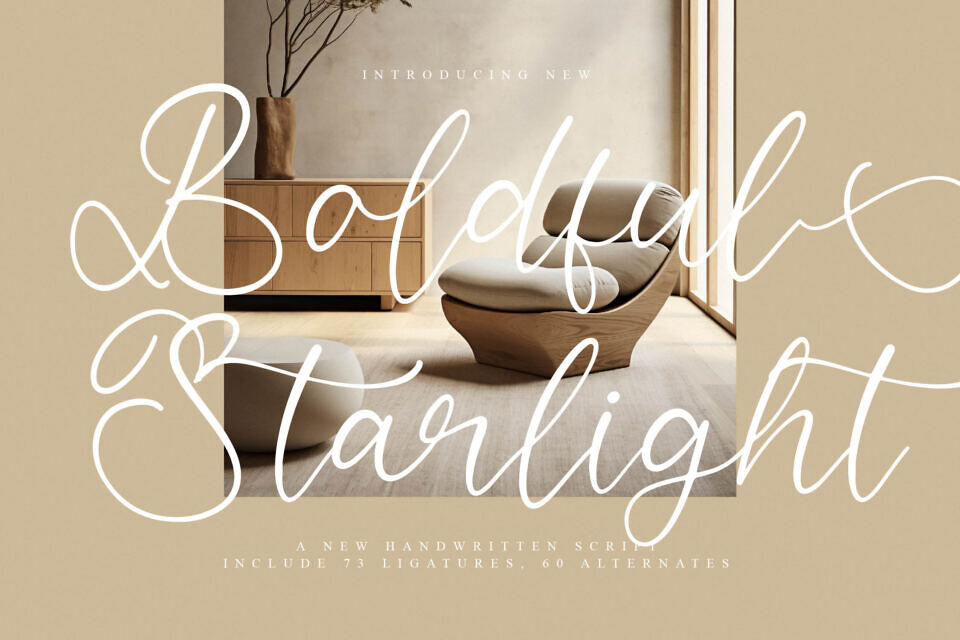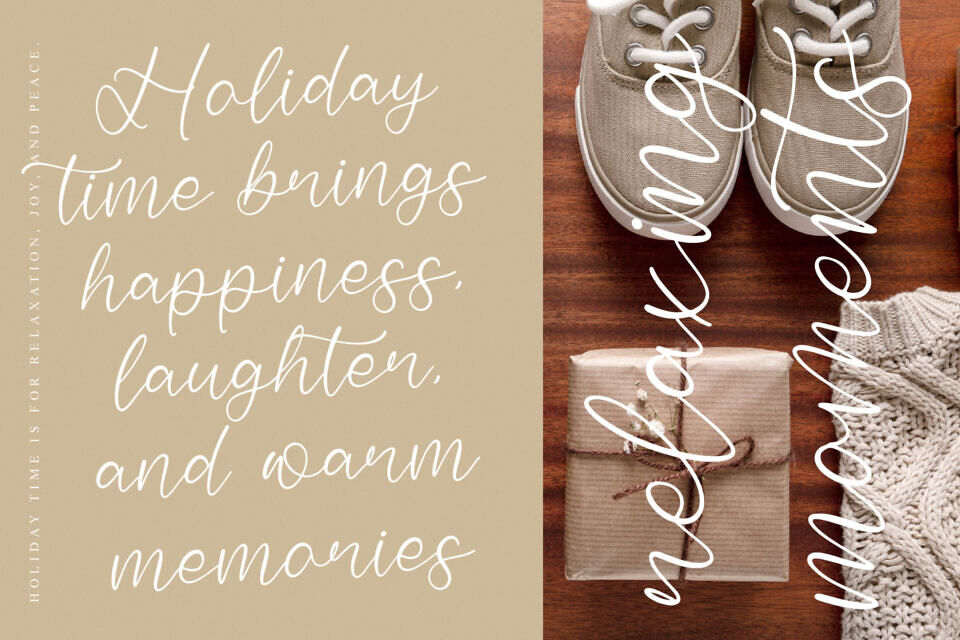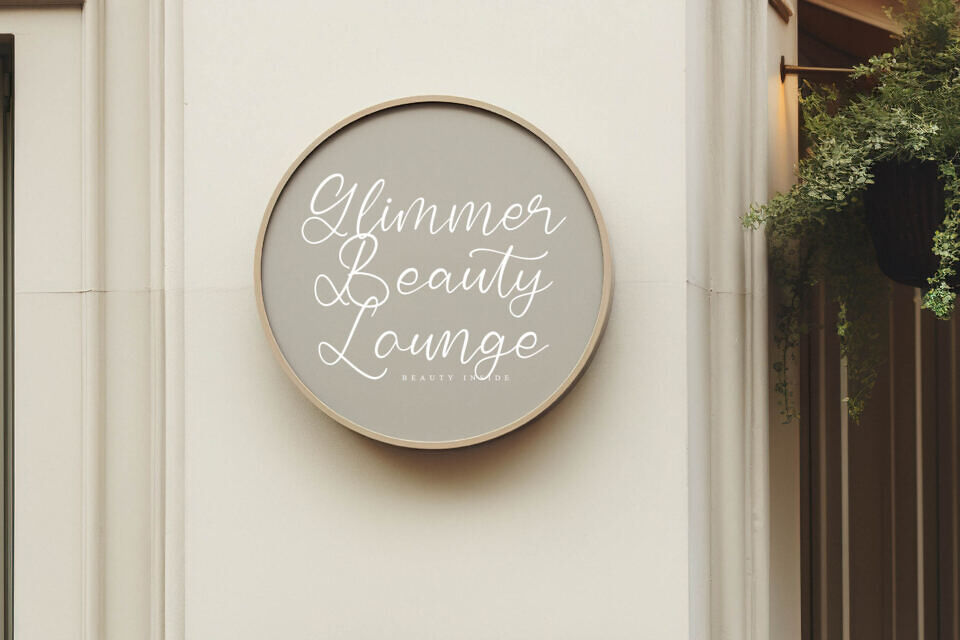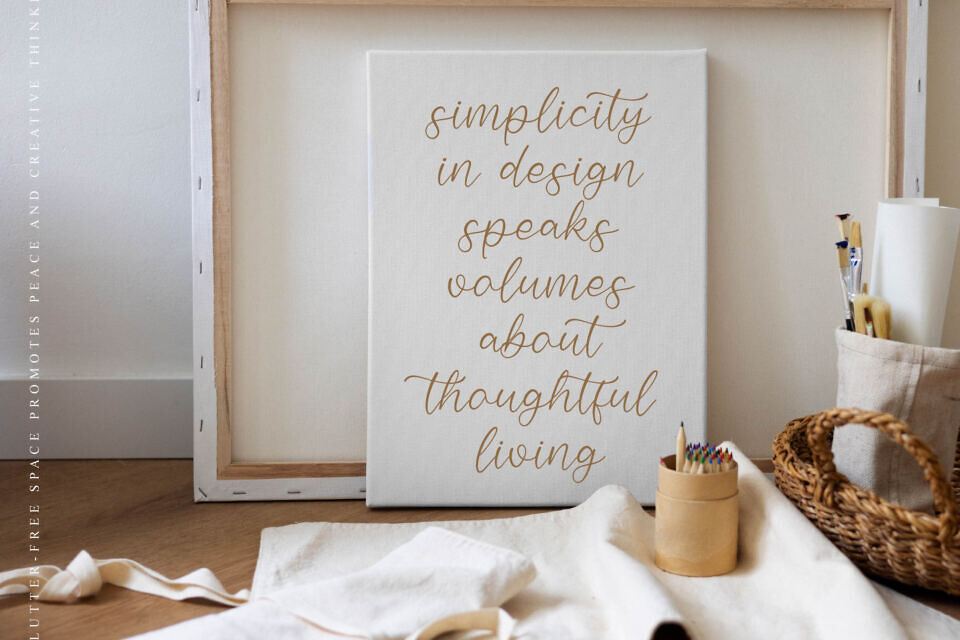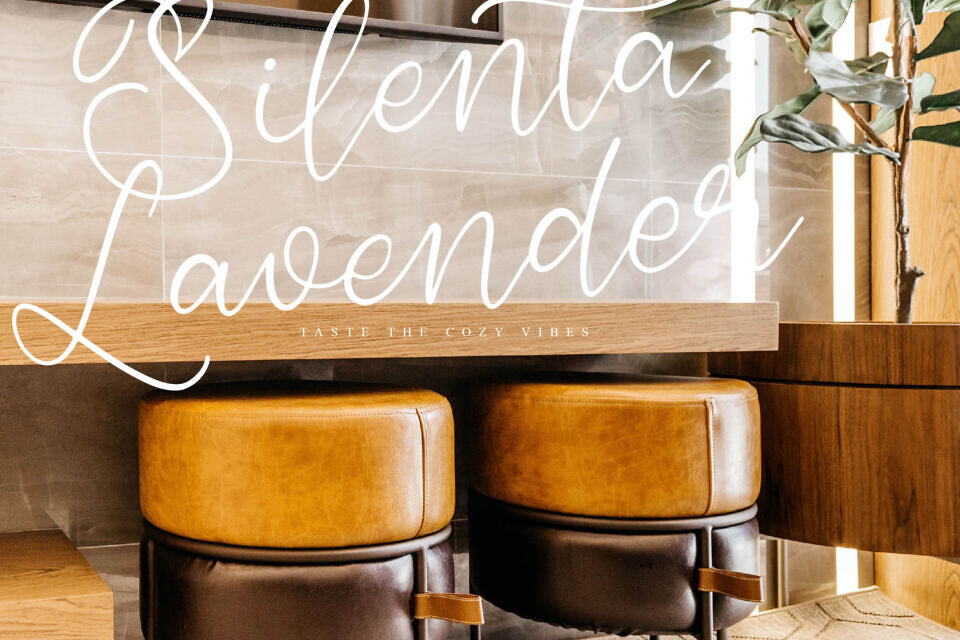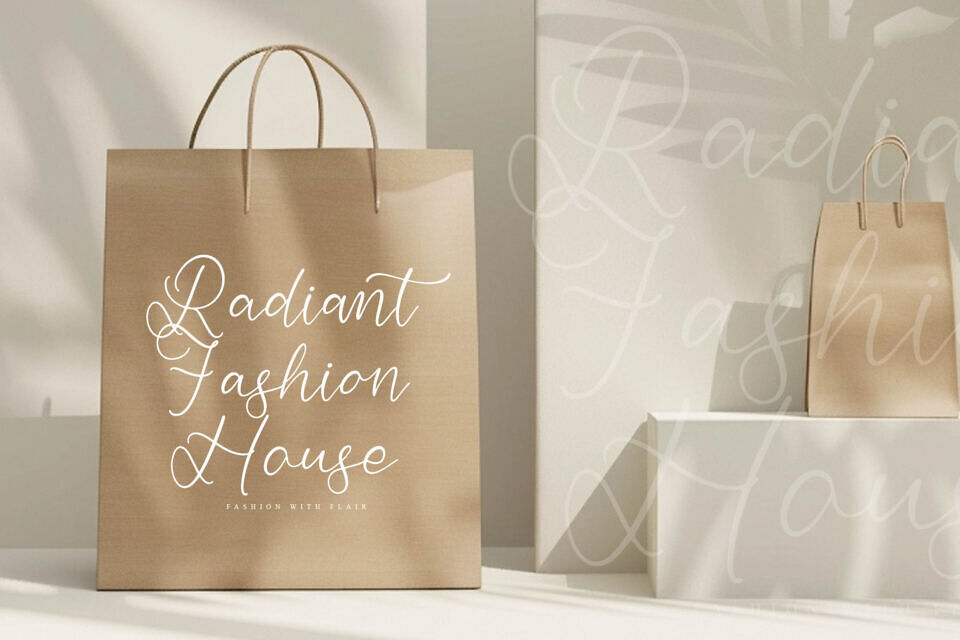
Boldful Starlight Font
Boldful Starlight is a sophisticated handwritten script font designed to bring elegance, charm, and artistic expression to modern design projects. Featuring flowing letterforms, graceful curves, and beautifully crafted swashes, this typeface delivers a luxurious handwritten aesthetic that feels both timeless and contemporary.
Created for designers who value beauty and versatility, Boldful Starlight combines natural handwriting movement with refined typography details. Its smooth rhythm, balanced character structure, and expressive handwritten flow create typography that feels authentic, stylish, and professionally crafted.